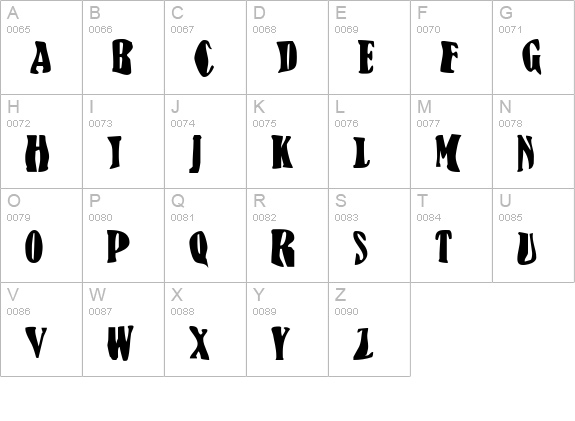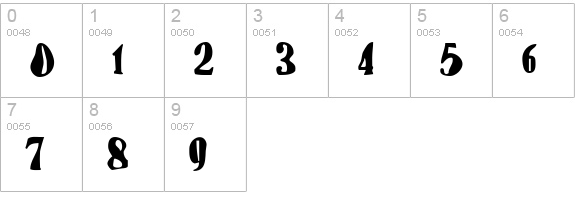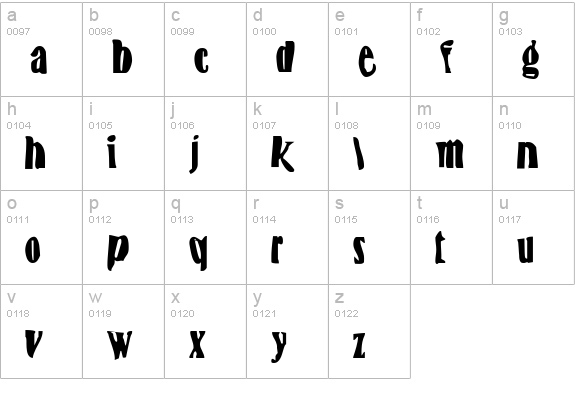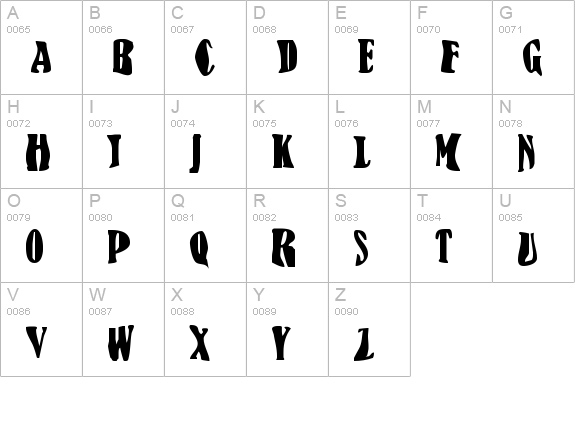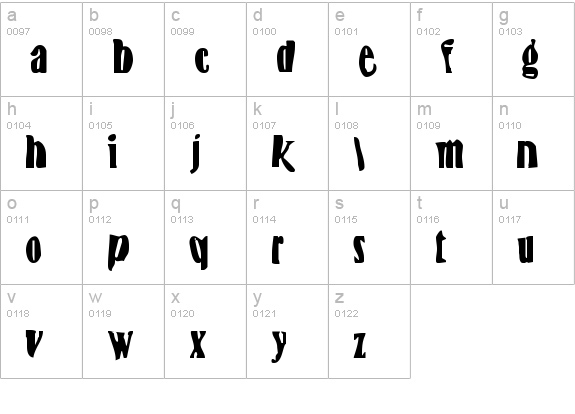
BN-FishEye Font Details
The BN-FishEye font is a unique and eye-catching typeface that is sure to make your designs stand out. With its playful and dynamic style, this font is perfect for a variety of projects, from posters to logos to social media graphics. The distorted and exaggerated characters give the text a fun and whimsical feel, making it a great choice for adding a touch of personality to your designs. The best part? BN-FishEye is available for free download at FontsMarket.com. This means you can use this fantastic font in your projects without having to worry about any additional costs. So why wait? Add BN-FishEye to your font collection today and let your creativity shine!